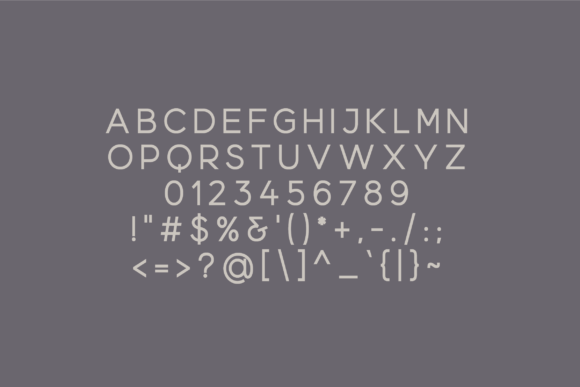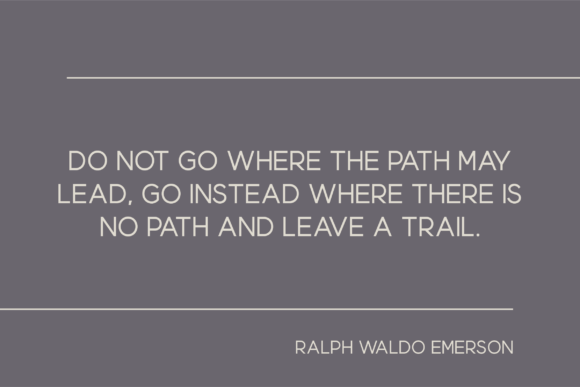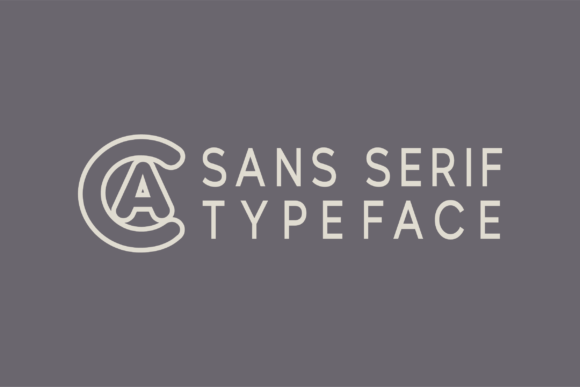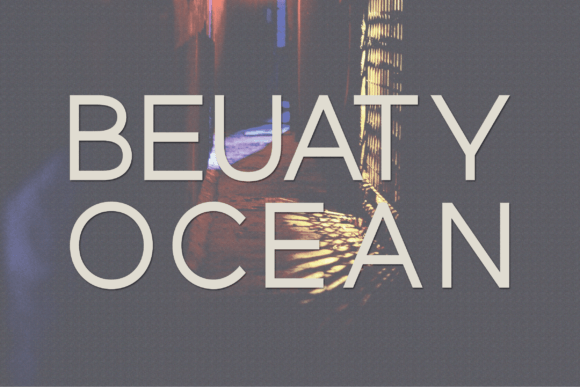
Introduction to Beuaty Ocean Font
Unveiling Beauty Ocean, an elegant combination of contemporary design and class, articulated beautifully in a sans serif typeface.
Renowned for its versatility, Beauty Ocean impresses with a complete selection of uppercase letters, numbers from 0-9, and an exhaustive assortment of punctuation and symbols It smoothly adapts to a plethora of design needs – a logo that seals the deal, wedding invitations that evoke a heartfelt smile, quotes that inspire, or advertisements that drive remarkable traction.
Key Features of Beuaty Ocean Font
Why Choose Beuaty Ocean Font?
Beuaty Ocean Font offers exceptional quality and versatility, making it a valuable addition to your design toolkit. Whether you’re creating for personal projects or commercial use, Beuaty Ocean Font delivers professional results.